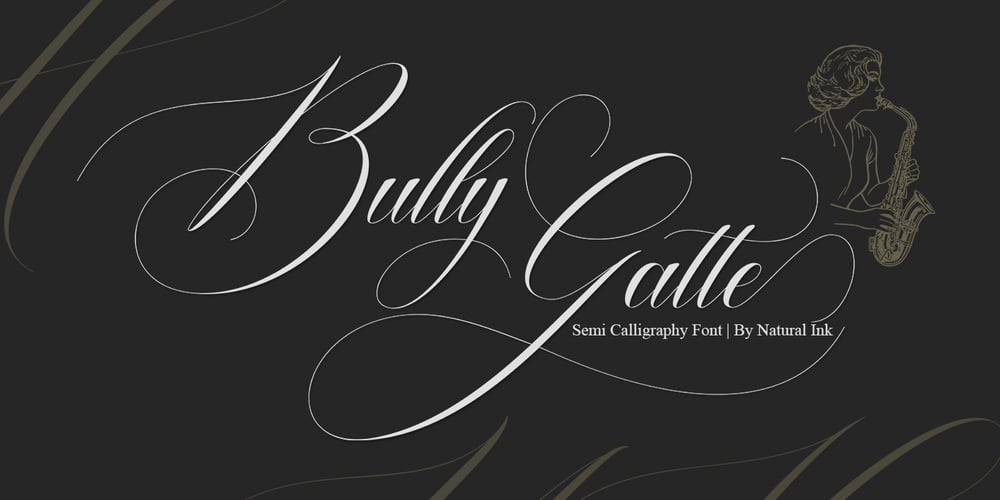
Bully Gatte
Bully Gatte font
Bully Gatte Font Family was designed by Arif Gunawan and published by Natural Ink. Bully Gatte contains 1 styles and family package options. Bully Gatte is a calligraphy design, including Regular. This font is casual and beautiful with swash. Can be used for various purposes. such as logos, product packaging, wedding invitations, branding, headlines, signage, labels, signatures, book covers, posters, quotes, and more.Bully Gatte Script includes a change in the OpenType language style, binding and international support for most Western languages. To activate the OpenType Stylistic alternative, you need a program that supports OpenType features such as Adobe Illustrator CS, Adobe Indesign & CorelDraw X6-X7, Microsoft Word 2010 or newer versions. How to access all alternative characters using Adobe Illustrator:https://www.youtube.com/watch?v=XzwjMkbB-wQBully Gatte Script is coded with PUA Unicode, which allows full access to all additional characters without having to design special software. Mac users can use the Font Book, and Windows users can use Character Map to view and copy one of the additional characters to insert into your favorite text editor / application. How to access all alternative characters, using Windows Character Map with Photoshop:https://www.youtube.com/watch?v=Go9vacoYmBwIf you need help or have questions, please let me know. I am happy to help 🙂 Thank you & Congratulations on Designing!